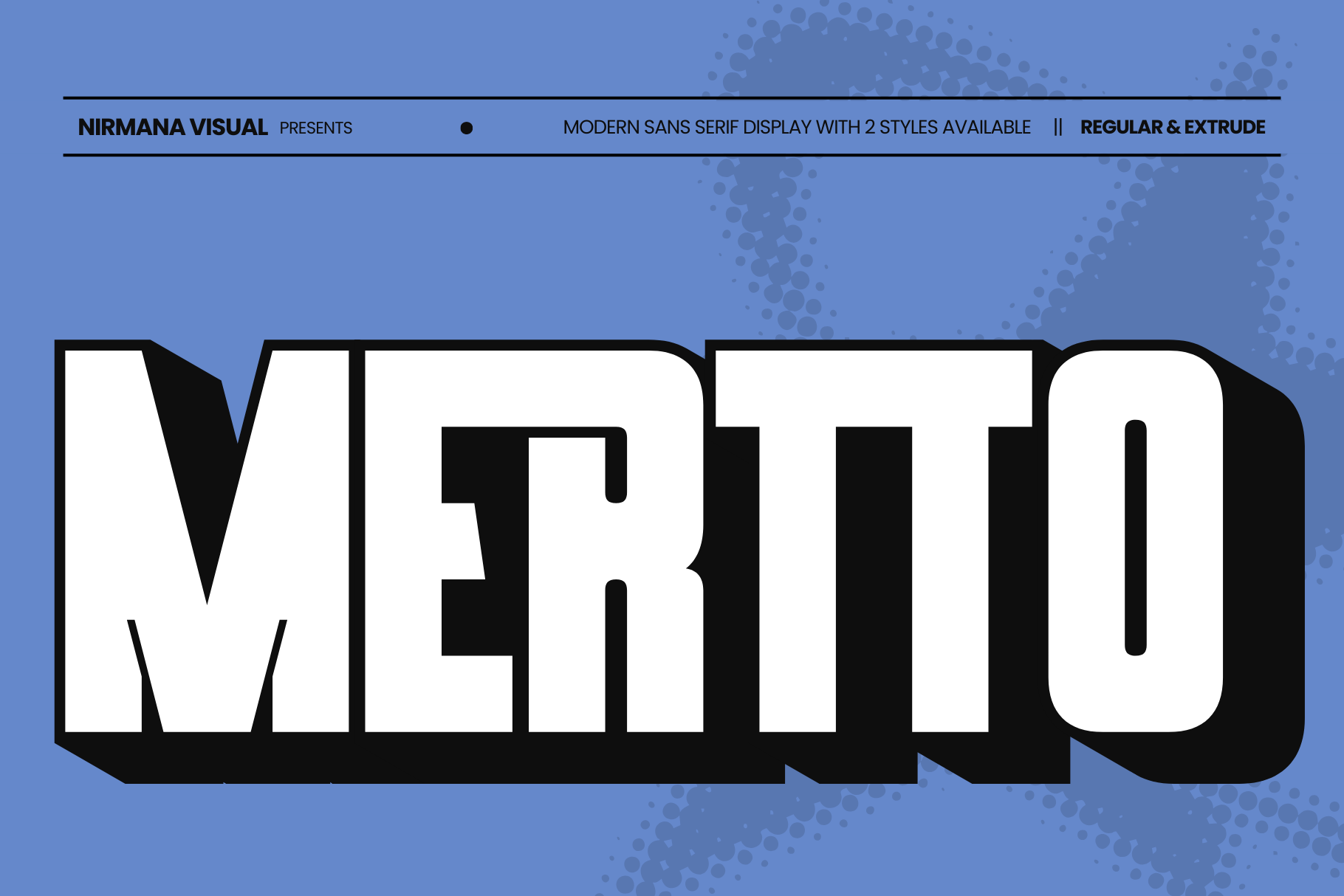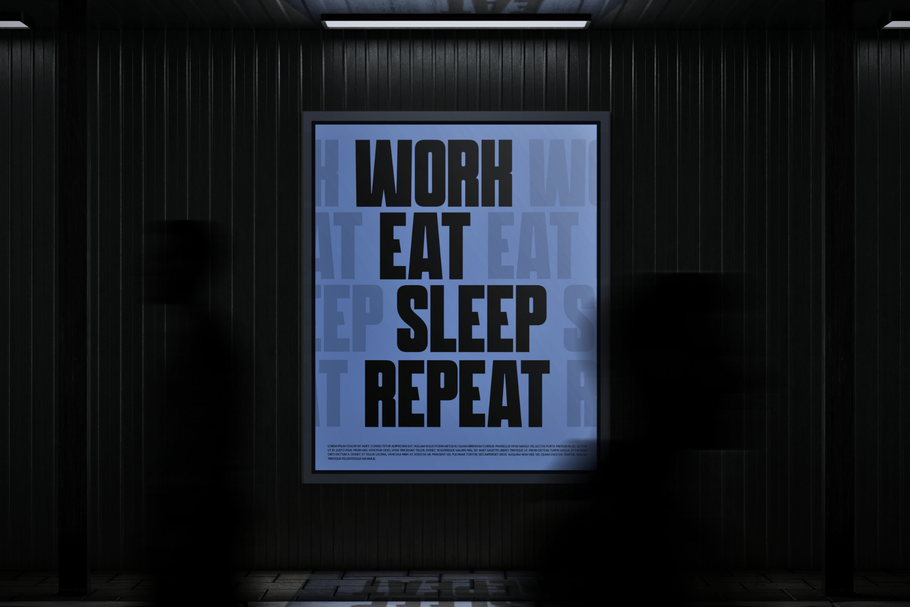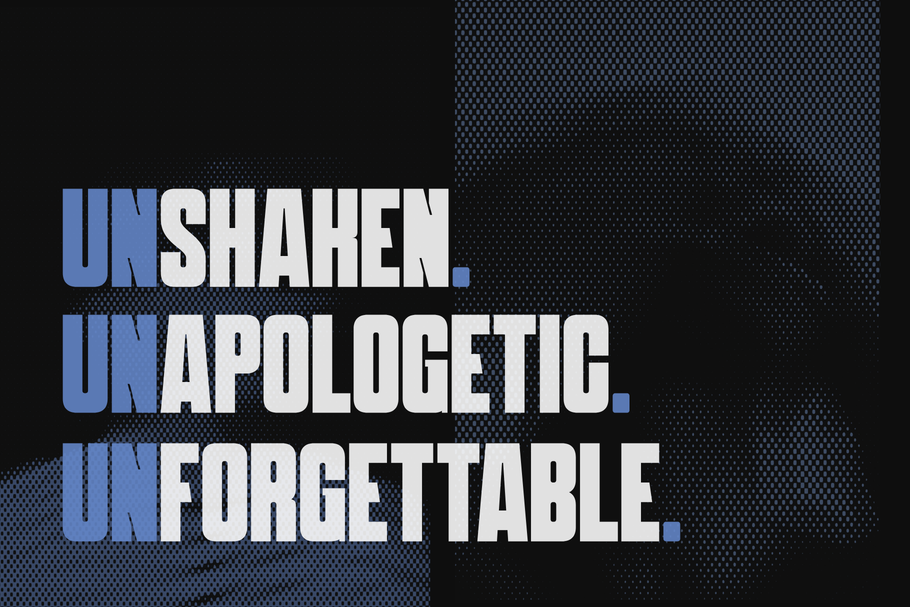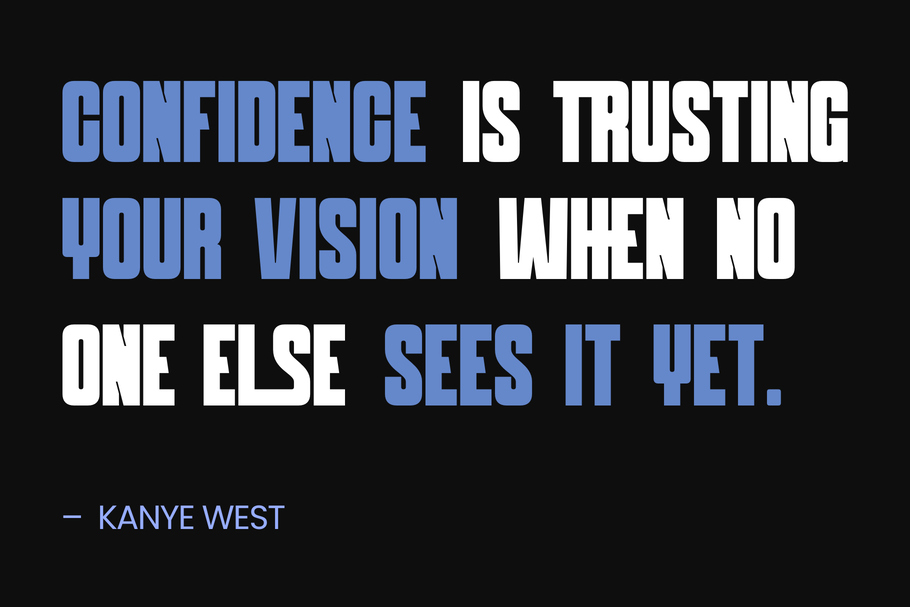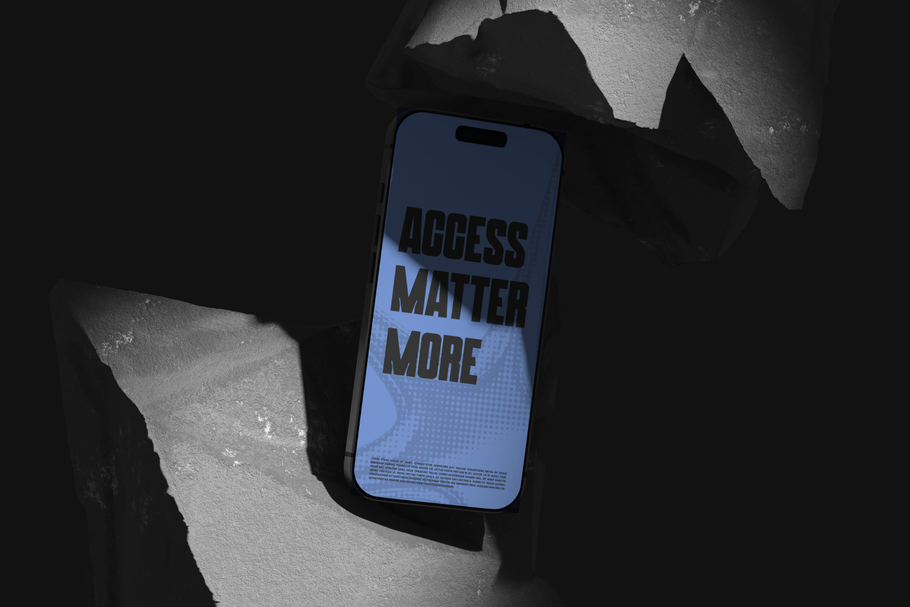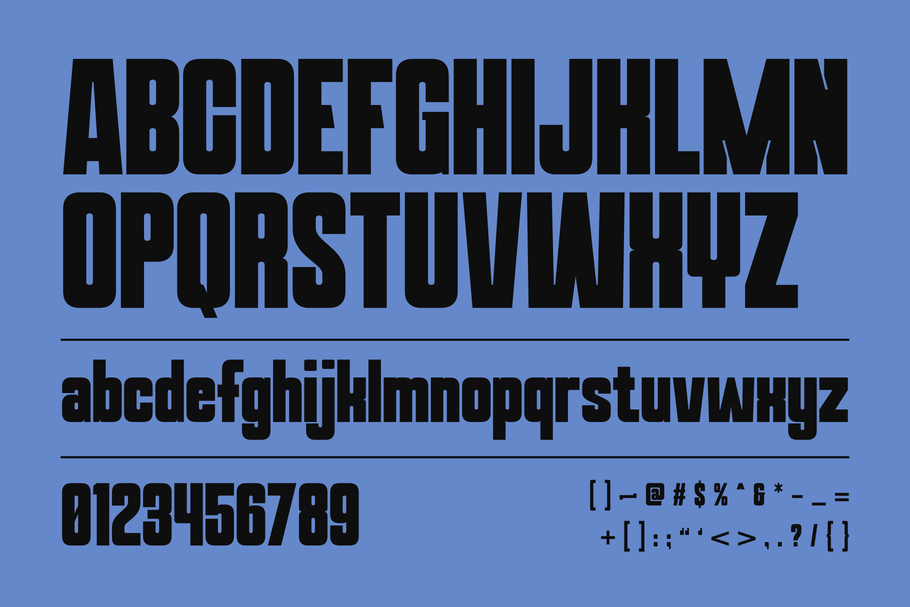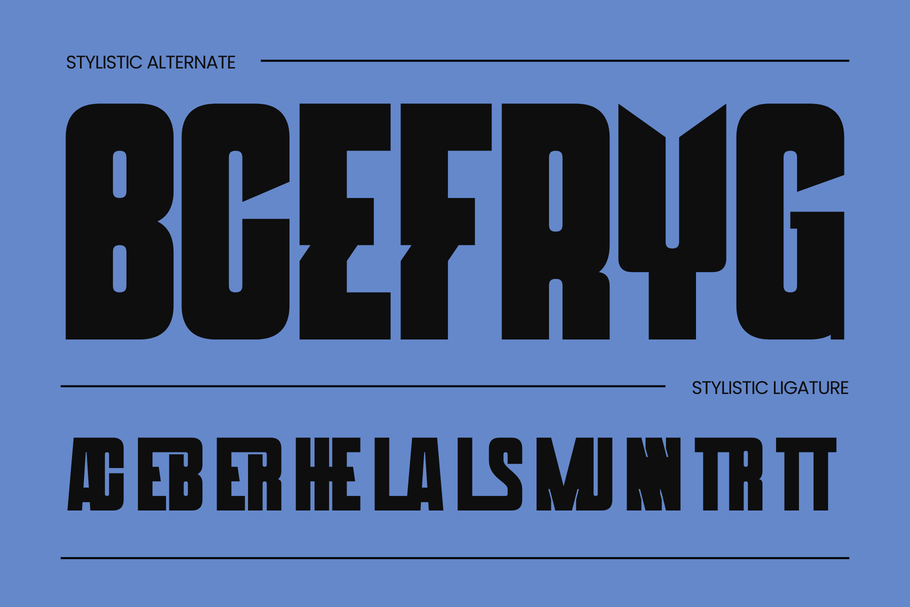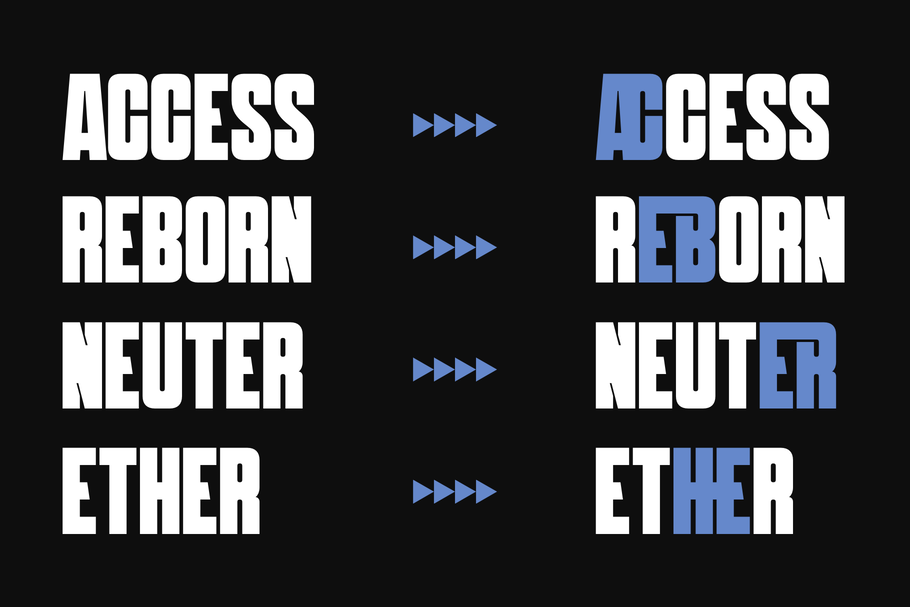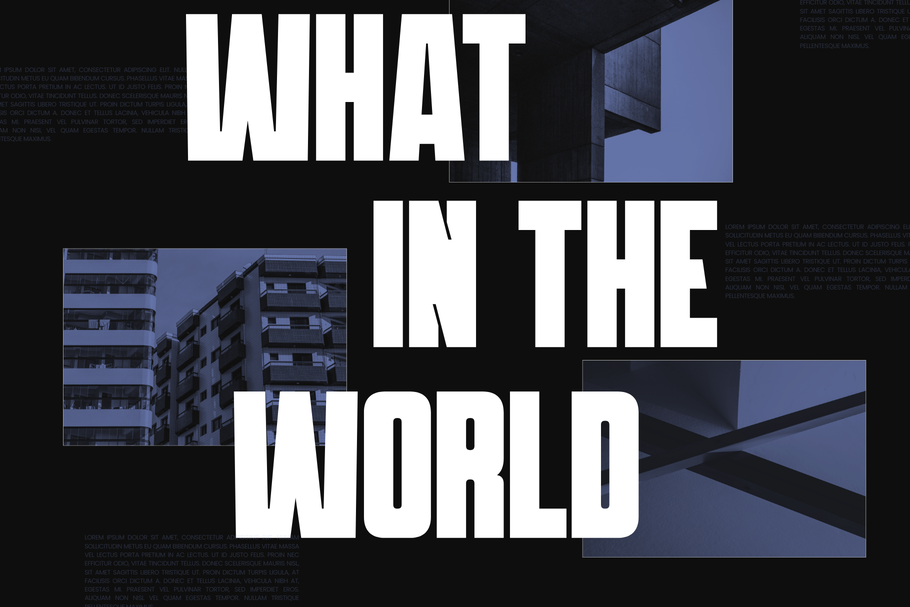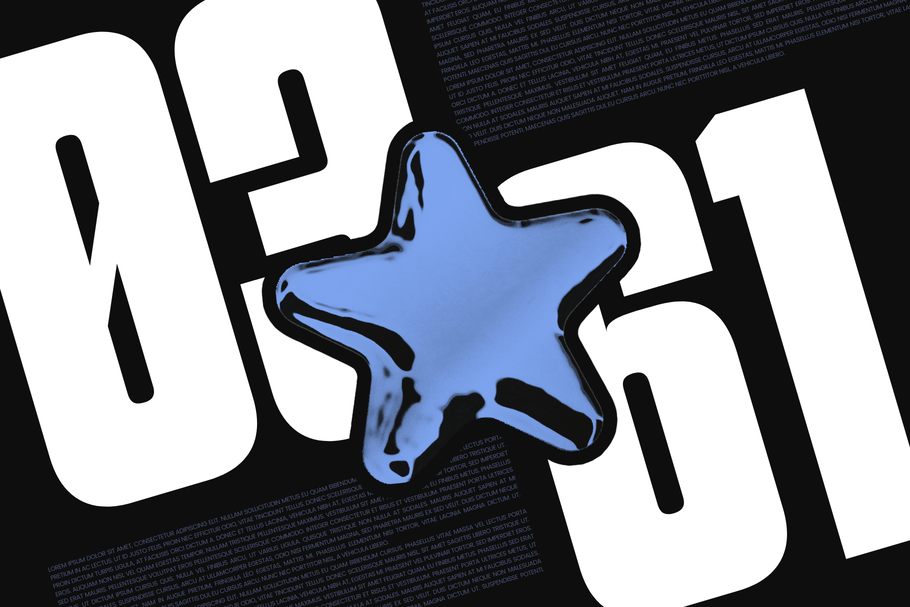
Mertto Modern offers beautiful typographic harmony for a diversity of design projects, including logos & branding, social media posts, advertisements & product designs.